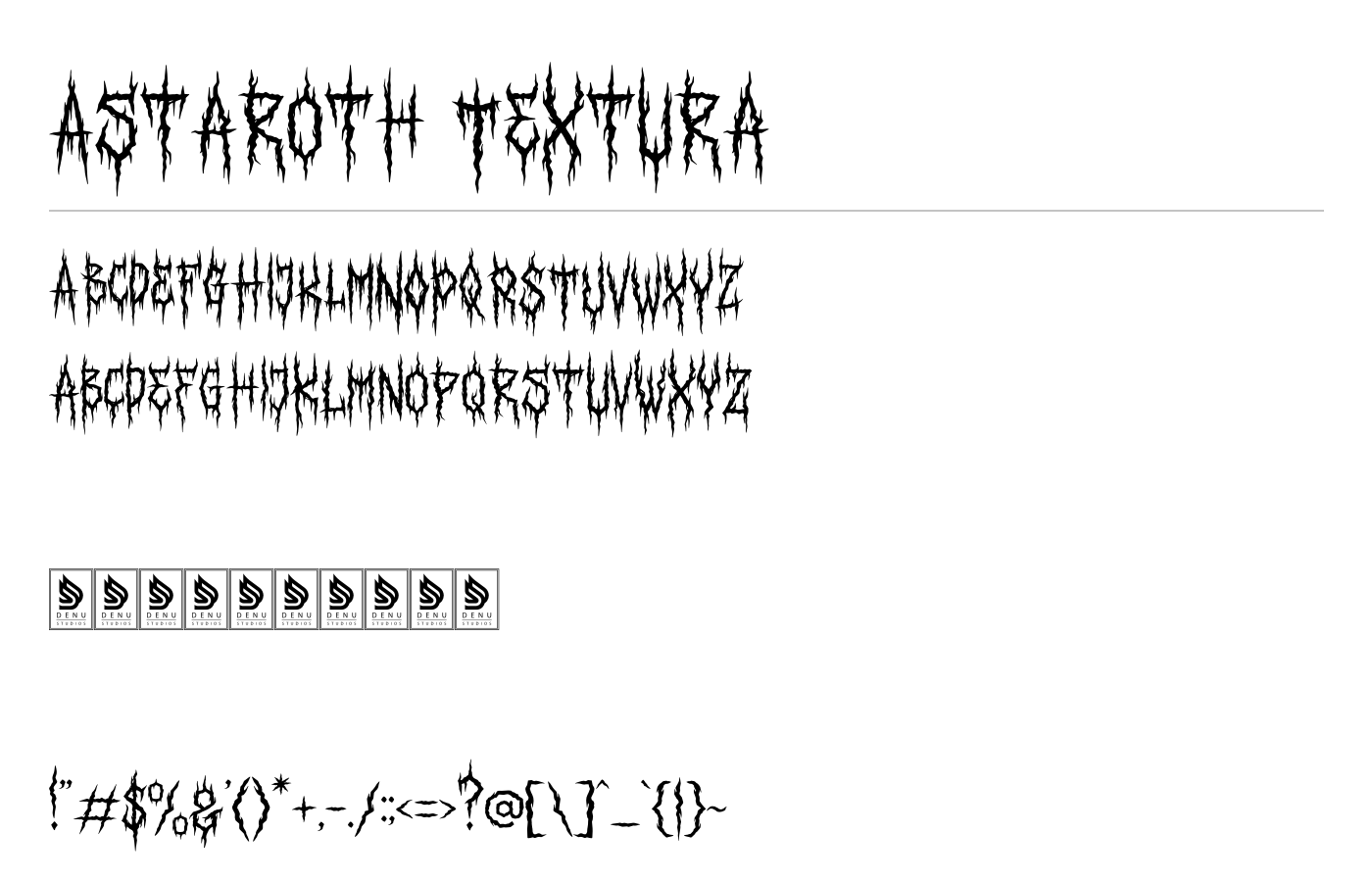
Astaroth Textura is a highly stylized, gothic-inspired display font with sharp, jagged edges that evoke a dark, mysterious atmosphere. Its condensed, uppercase-only letterforms feature intricate, thorn-like details, making it ideal for dramatic, horror, or fantasy-themed designs that need a bold, striking impact. This font works best for logos, posters, and headlines where a strong, eerie presence is desired.
Astaroth Textura Font
About Astaroth Textura Font
| Font family | Astaroth Textura Font |
| Designer | Dede Nugraha |